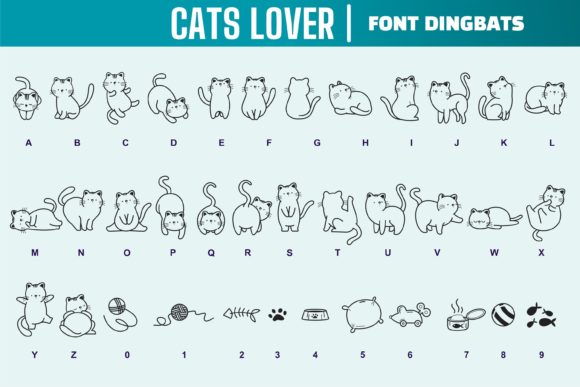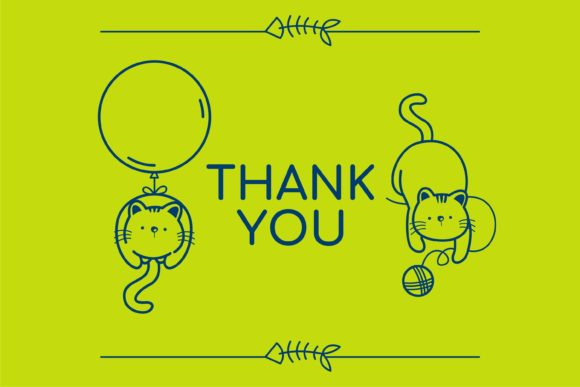
Cats Lover Font
About Cats Lover Font
Cats Lover is an enchanting and one-of-a-kind dingbats font that celebrates the love for cats. With its unique and captivating style, this font is a delightful addition to your font collection, offering endless possibilities for your creative projects.
This font is specifically designed for cat enthusiasts and those who want to infuse their designs with feline charm. Each character in Cats Lover represents a different cat-related symbol or motif, ranging from adorable cat silhouettes to playful paw prints, whiskers, and other cat-inspired elements. Whether you’re designing for personal or commercial use, this font allows you to incorporate a touch of feline magic into your creations.
One of the great advantages of Cats Lover is its versatility. It can be used in a wide range of design applications, making it suitable for various projects. Whether you’re crafting handmade greeting cards, creating digital illustrations, designing posters, or even decorating cat-themed merchandise, this font adds a whimsical and eye-catching element to your designs.
For crafting enthusiasts, Cats Lover opens up a world of possibilities. From scrapbooking to handmade gifts and decorations, the charming cat symbols provided by this font can be used to enhance your projects and make them truly unique. Create cat-themed journals, stickers, party invitations, or even custom cat-inspired jewelry with ease.
Digital designers can also take advantage of Cats Lover to create captivating visuals. Whether you’re working on social media graphics, blog headers, or website elements, this font allows you to effortlessly infuse your designs with feline personality. Engage your audience with playful and appealing cat-themed icons that capture their attention and convey your love for these furry creatures.
Presentations and educational materials can also benefit from the charm of Cats Lover. If you’re giving a talk or creating educational content about cats, this font can add a touch of creativity and visual interest to your slides. Use it to highlight key points, create engaging bullet points, or design captivating headers that resonate with cat lovers of all ages.
Cats Lover is user-friendly and easy to use. Simply type the corresponding characters to generate the cat-themed symbols, and let your creativity take flight. The font’s distinct style ensures that your designs stand out and leave a lasting impression.
In summary, Cats Lover is a cool and unique dingbats font that caters to the love and fascination for our feline friends. Whether you’re a cat enthusiast, a designer looking for a playful touch, or simply someone who appreciates the beauty of cats, this font is a perfect choice. From crafting to digital design and everything in between, Cats Lover allows you to express your love for cats in a creative and visually appealing way.